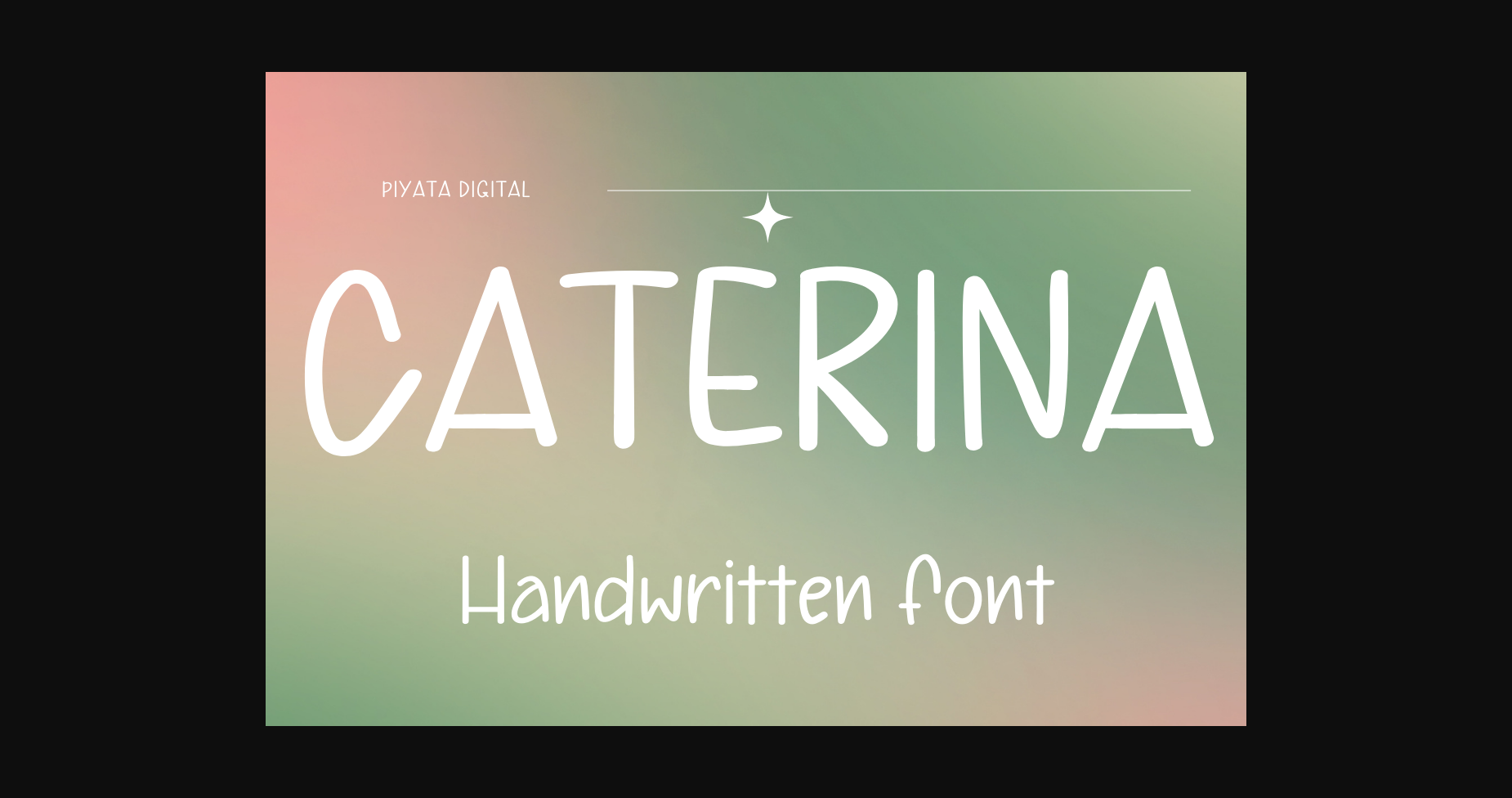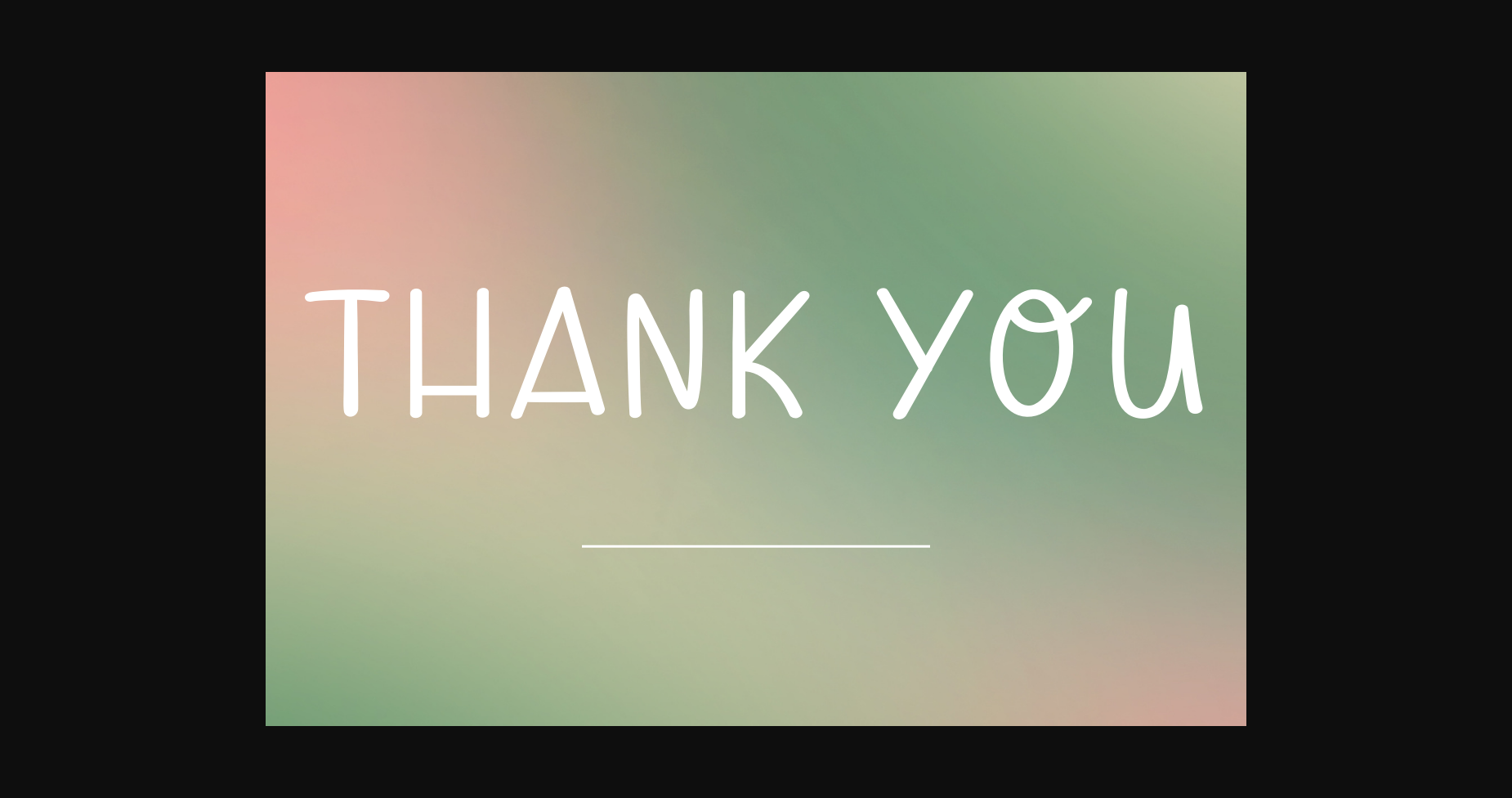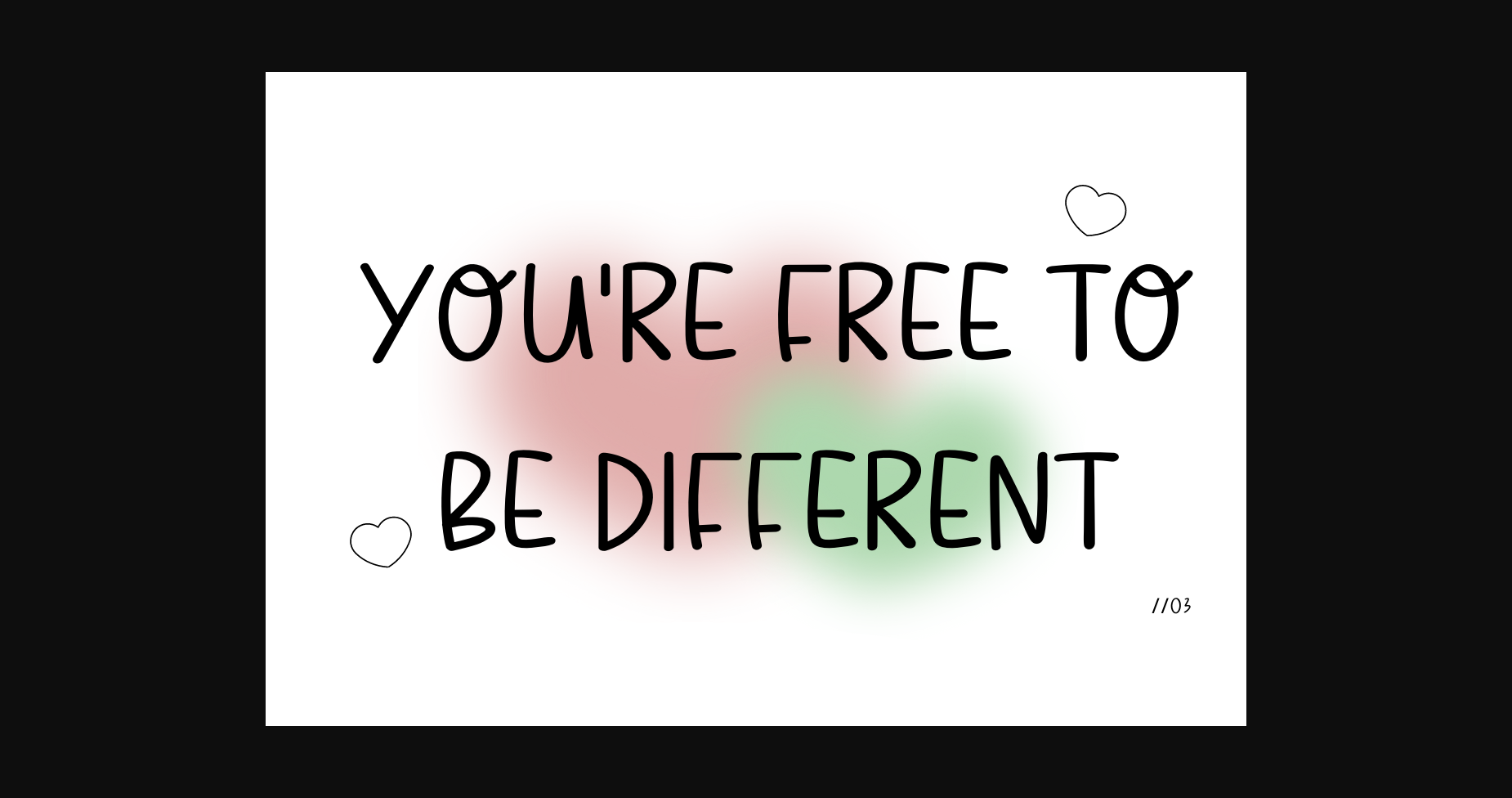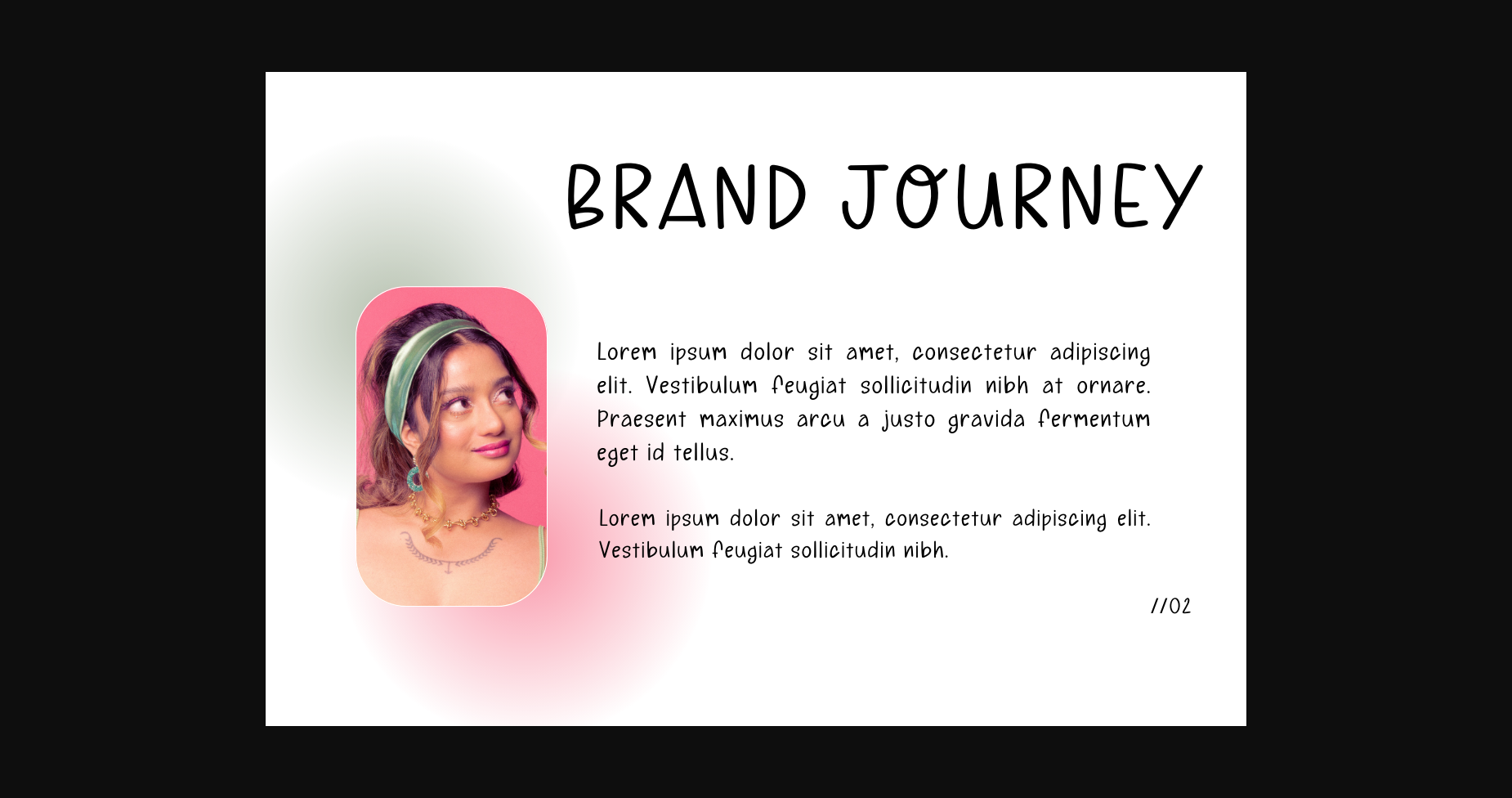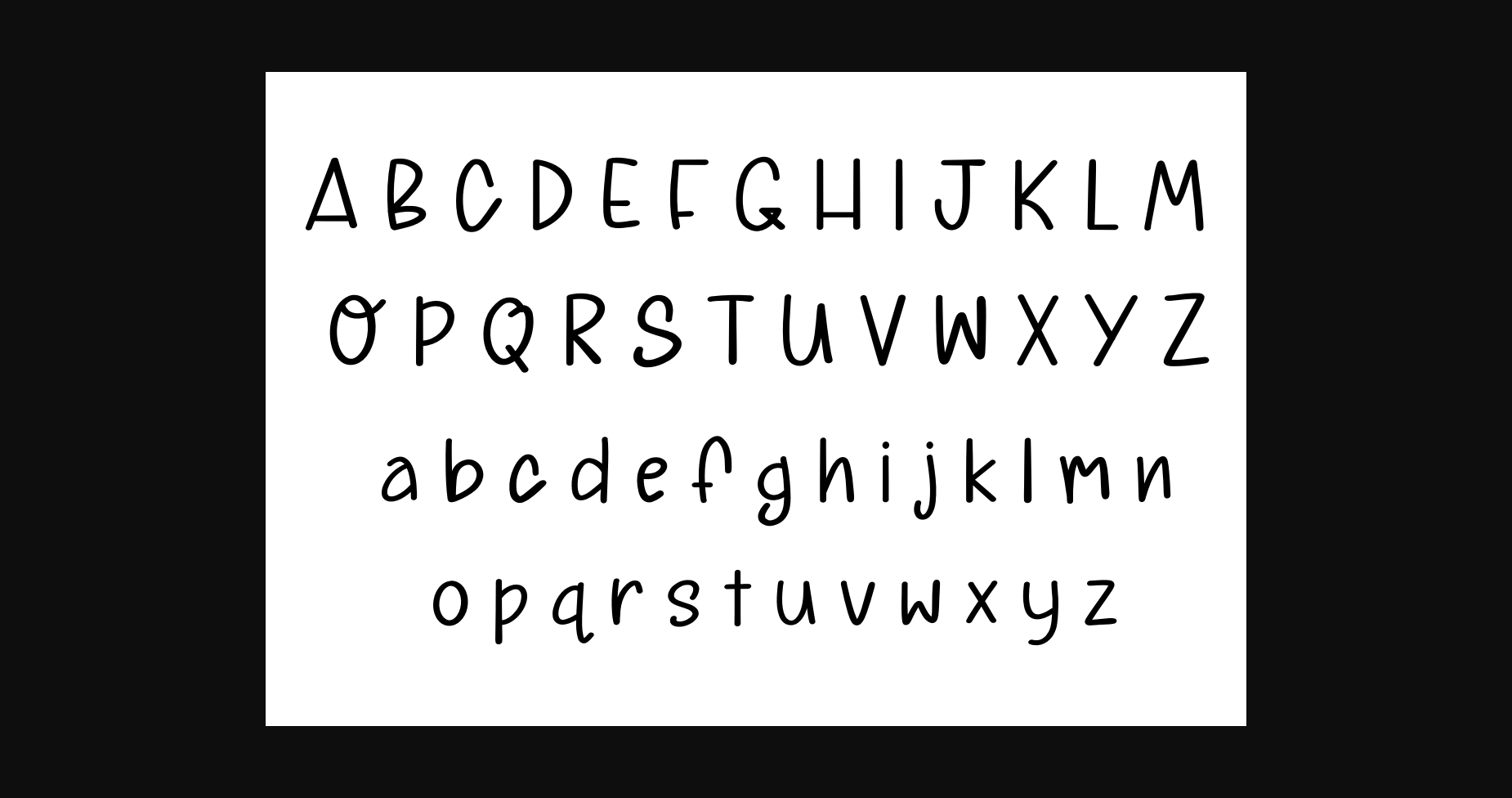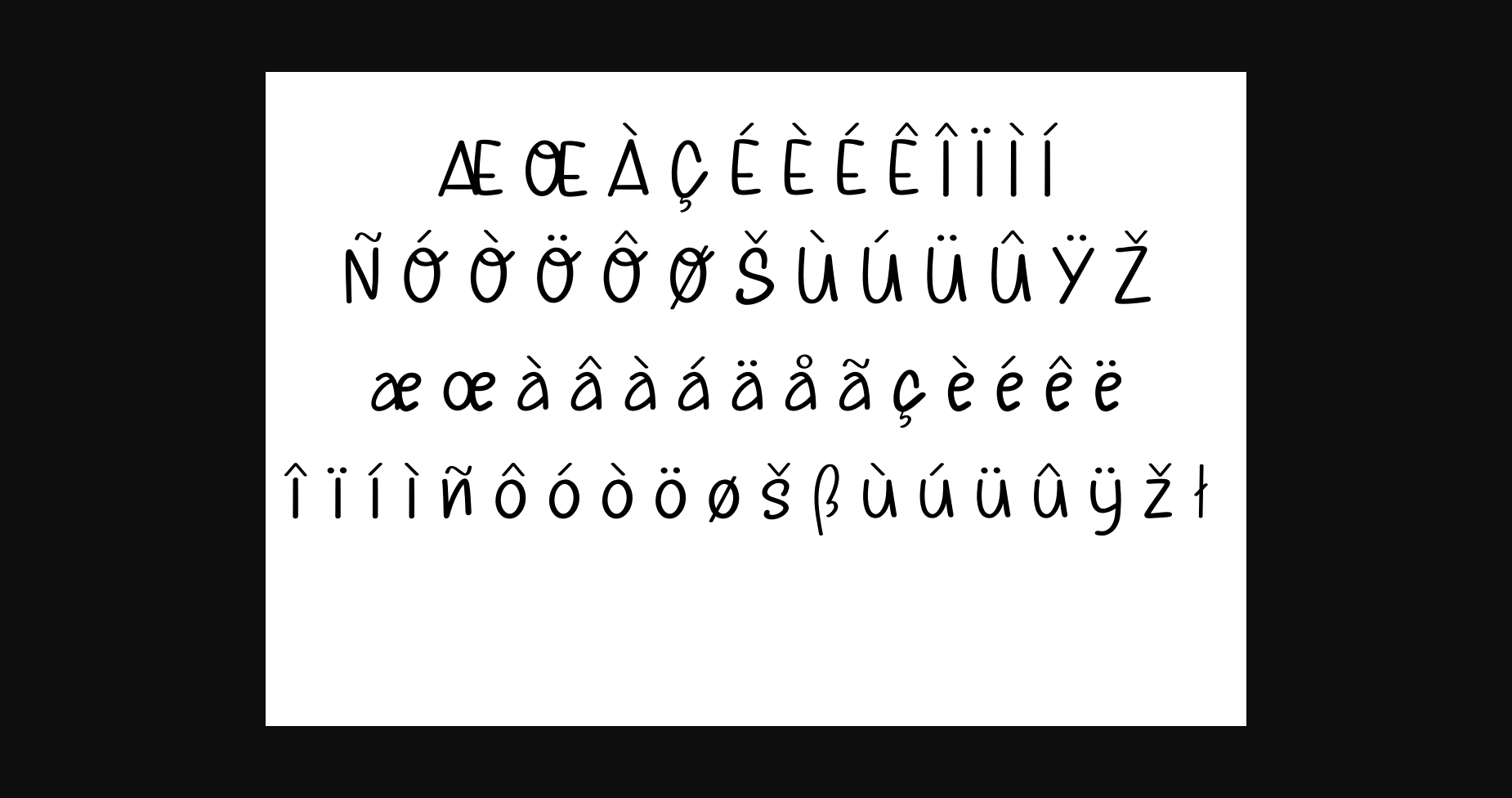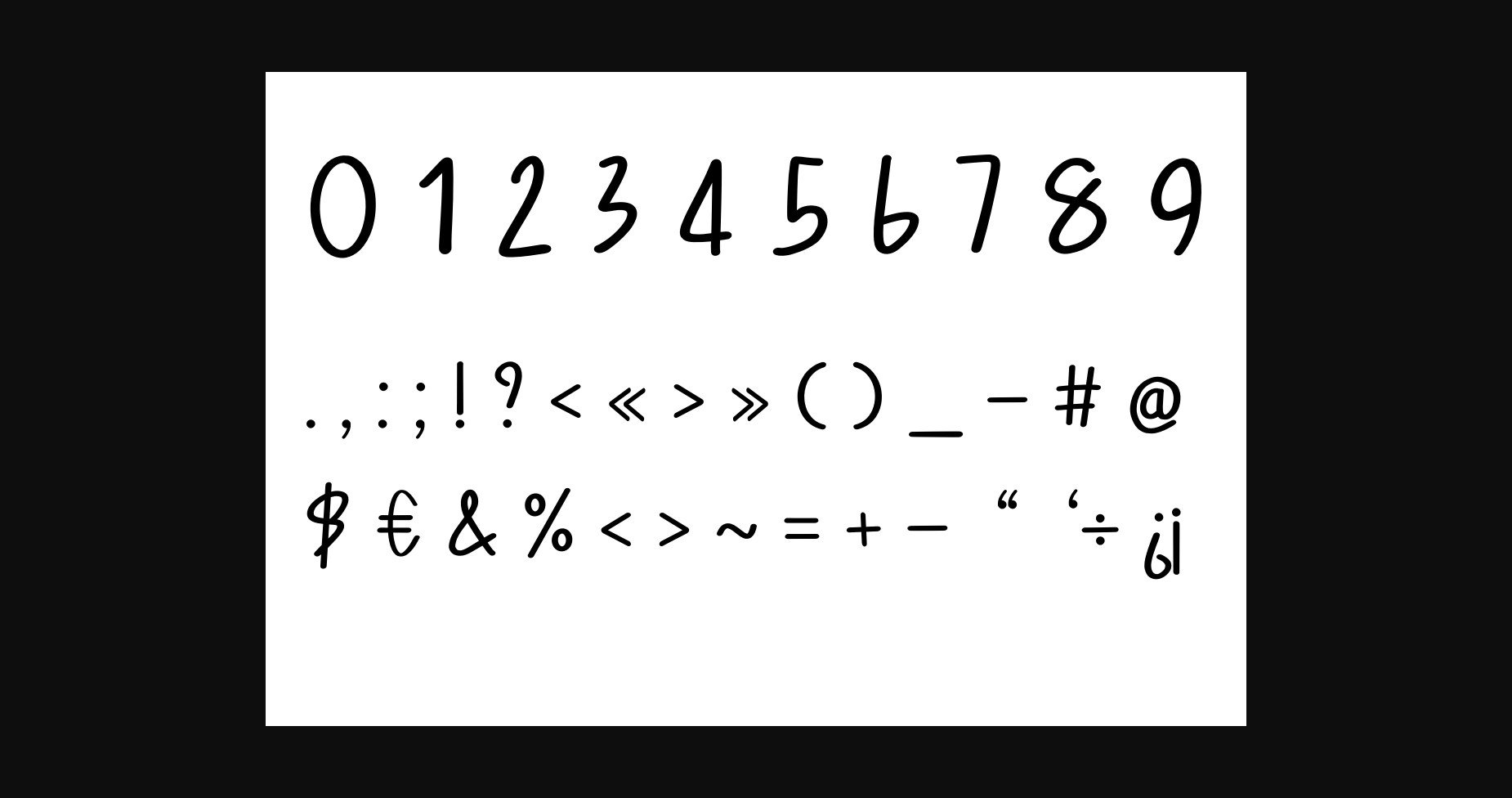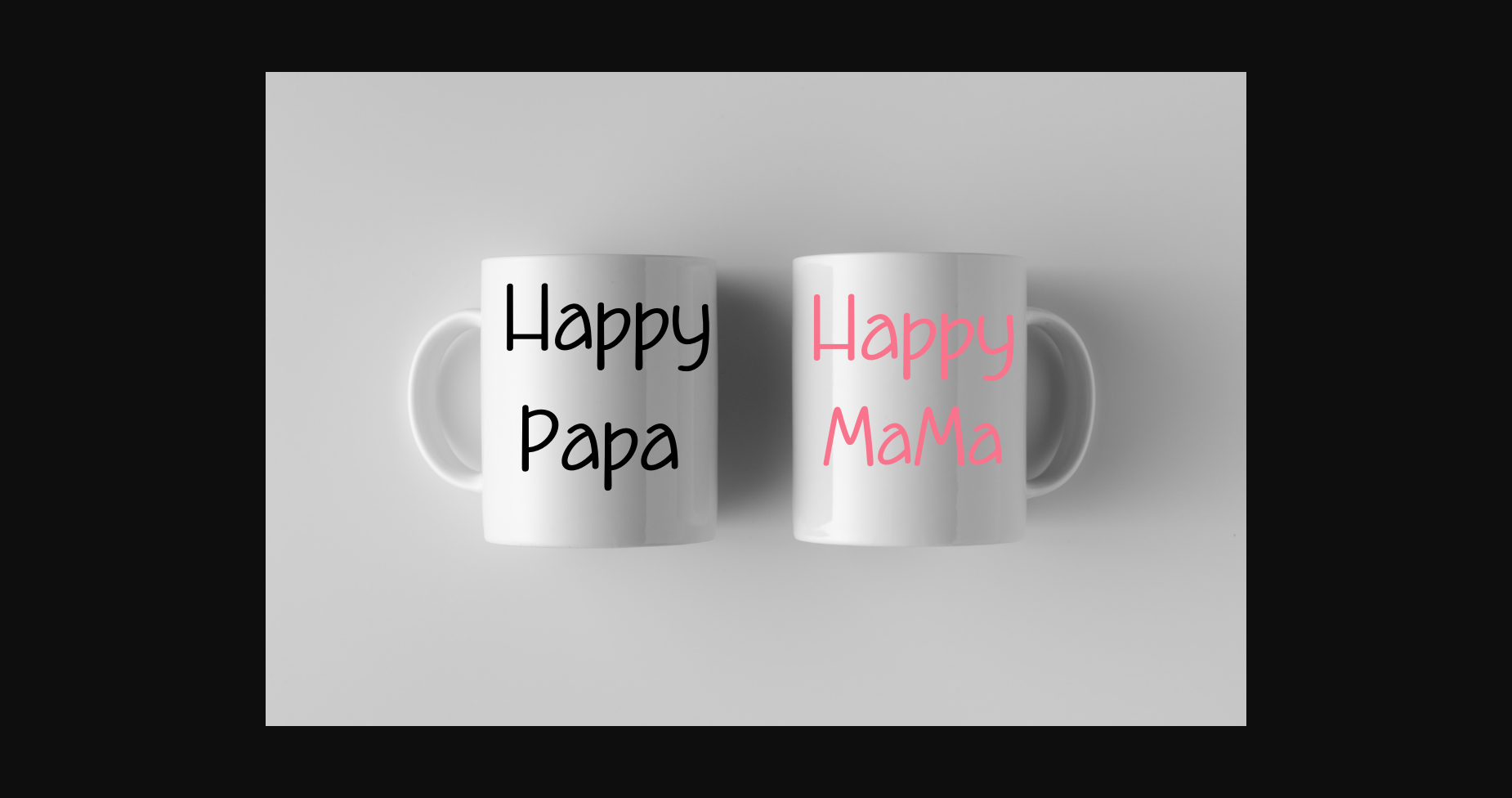
Caterina is a playful handwritten sans serif font. Fall in love with its incredibly distinct and timeless style and use it to create spectacular designs.